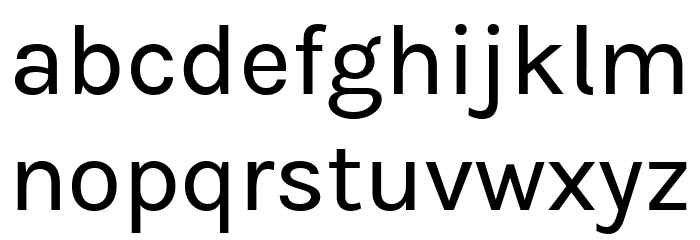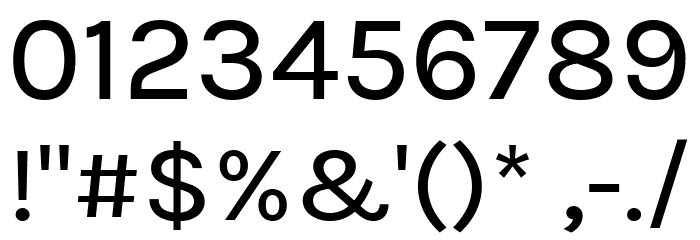
BetinaSans-Medium Font
This font features a clean and modern sans-serif design, characterized by its straightforward and geometric letterforms. The uppercase letters are uniform in height and width, providing a balanced and harmonious appearance. The lowercase letters maintain a consistent x-height, contributing to its readability. The numerals are clear and distinct, making them suitable for various applications. Special characters are well-defined, enhancing the font's versatility. Overall, this font exudes a contemporary feel, making it ideal for digital and print media.
A modern sans-serif font with geometric and clean letterforms.
- Proposed Projects: Ideal for branding, web design, advertising, and editorial projects.